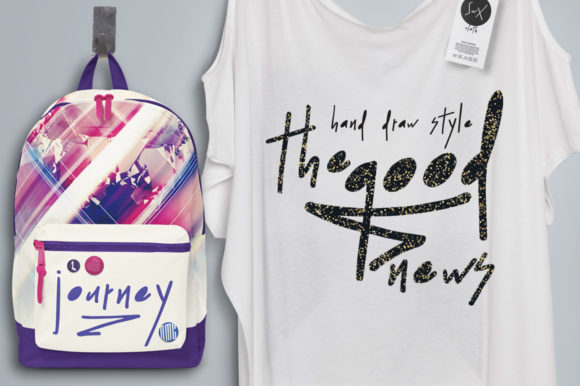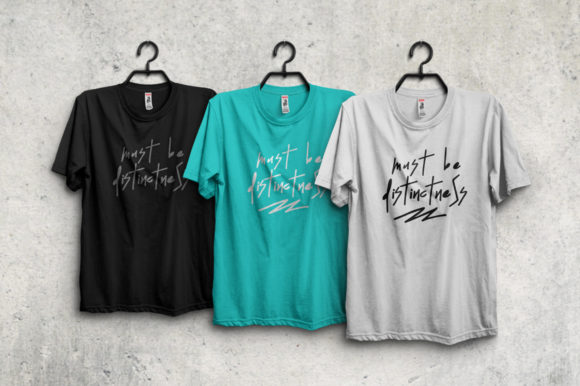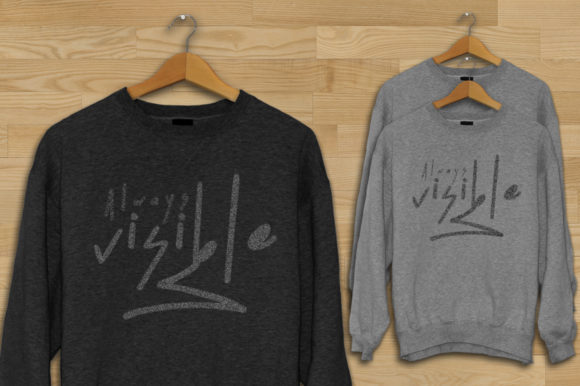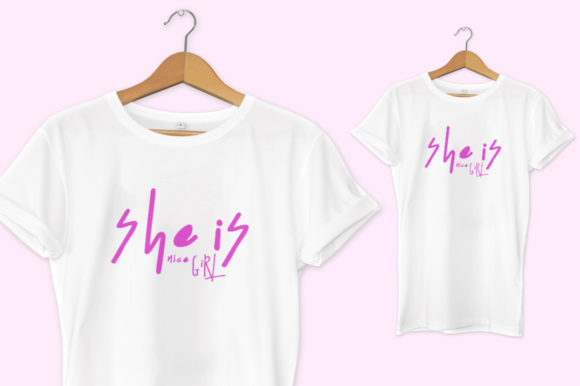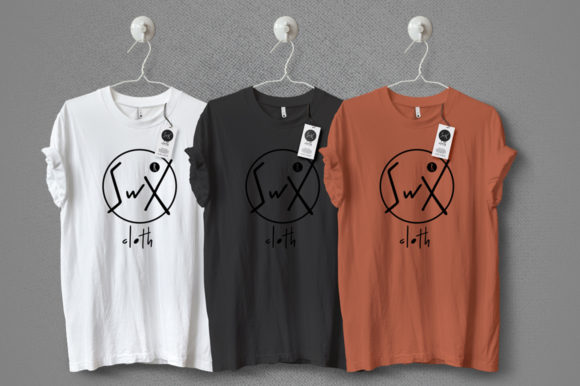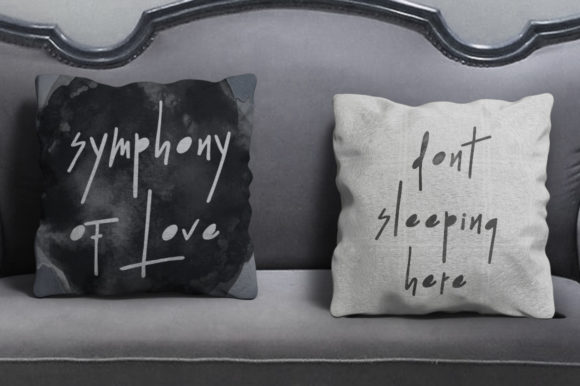
The Good News Font
About The Good News Font
The Good News is an unique script font. It allows you to create designs with a natural handwritten feel.
It can be used for clothing designs, posters, branding, flyers, cards, invitations, lettering projects, and much more.